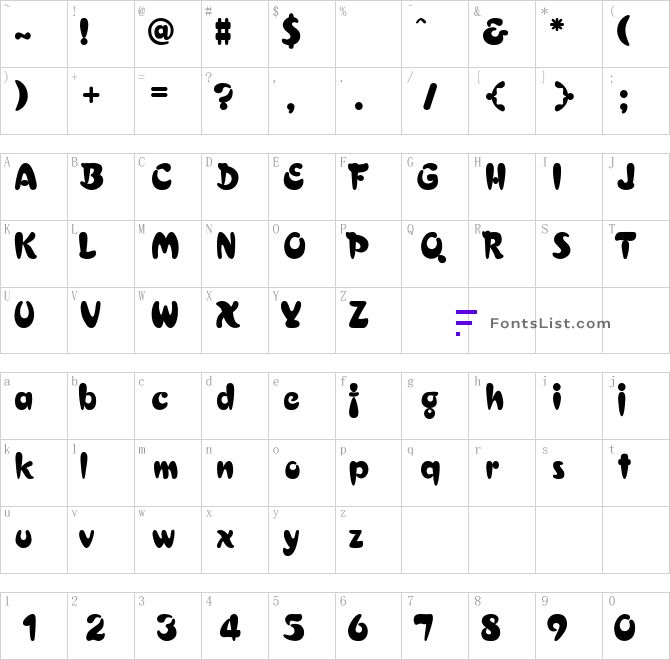
- Font Name:AC
- Subfamily:FontMonger:Electrik
- Full Name:AC
- PostScript:Electrik
AC.ttf is a very beautiful artistic font, AC.ttf is widely used in the design and printing of various books and pictures,AC.ttf has a strong visual impact,AC.ttf is a commonly used font in newspapers, magazines and books, and is used in posters, e-commerce Poster design, store design, logo design, font design and other fields.AC.